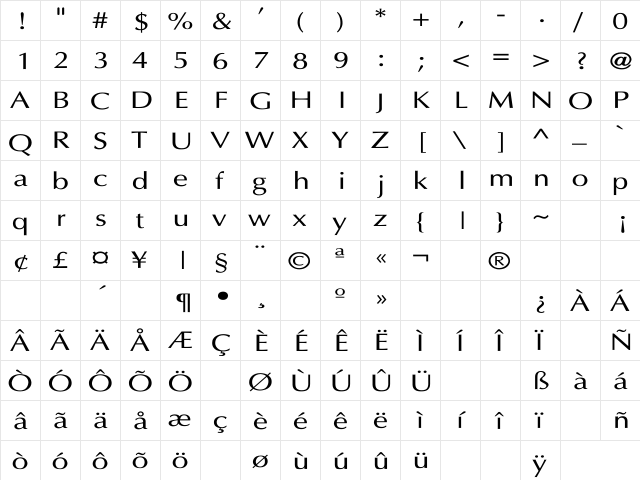
Optima Wd Regular
Design Context for Optima Wd Typeface
Optima Wd is a composed and adaptable typeface that performs quietly and consistently across a wide range of design contexts.